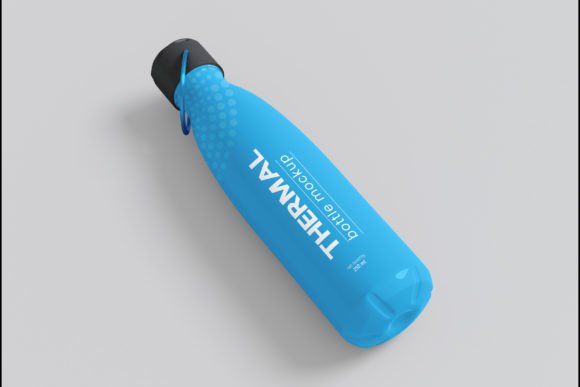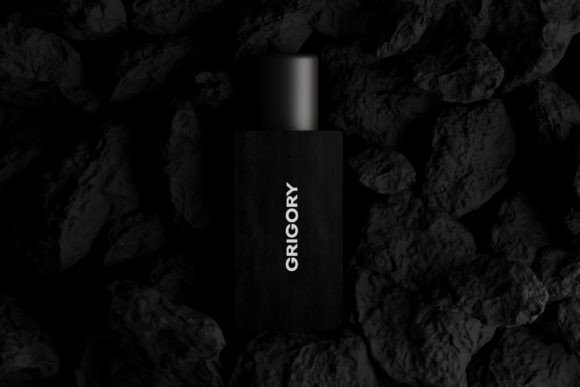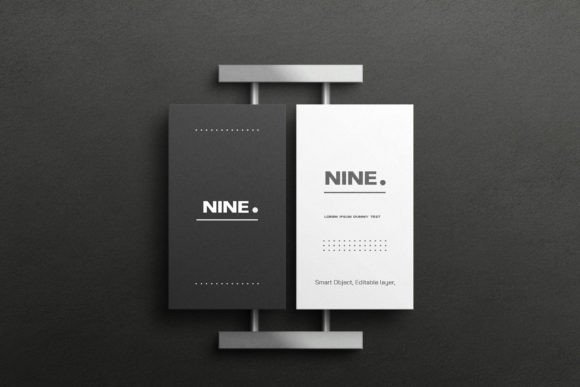
Introduction to Morolia Font Font
Fonts play a crucial role in design, and the Morolia Font font is a typeface that brings both character and versatility to any project. Whether you’re working on a branding project, a website, or a print design, the Morolia Font font offers a unique style that can elevate your work.
Morolia is a modern, elegant display font that features unique and stylish letterforms.
The letters are tall and thick The overall design of the font is minimalist and clean, making it perfect for use in branding, headlines, posters, and other graphic design projects.
Key Features of Morolia Font Font
Why Choose Morolia Font Font?
The Morolia Font font is more than just a typeface – it’s a design tool that helps you communicate your message with style and clarity. Its unique character set and versatile design make it suitable for a wide range of applications, from elegant invitations to bold headlines.
With its carefully crafted letterforms and balanced proportions, the Morolia Font font ensures readability and visual appeal across all mediums.
What makes Morolia Font font special?
The Morolia Font font stands out with its unique design, exceptional readability, and versatility across various design applications.